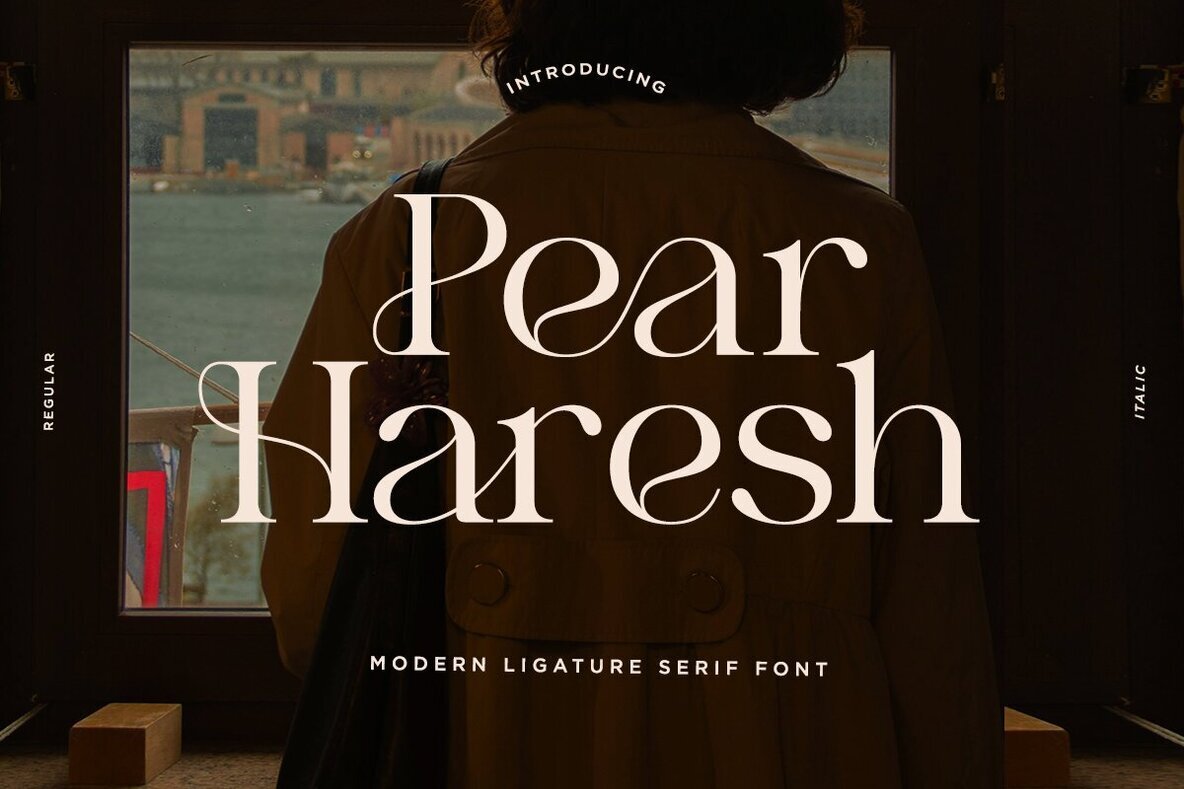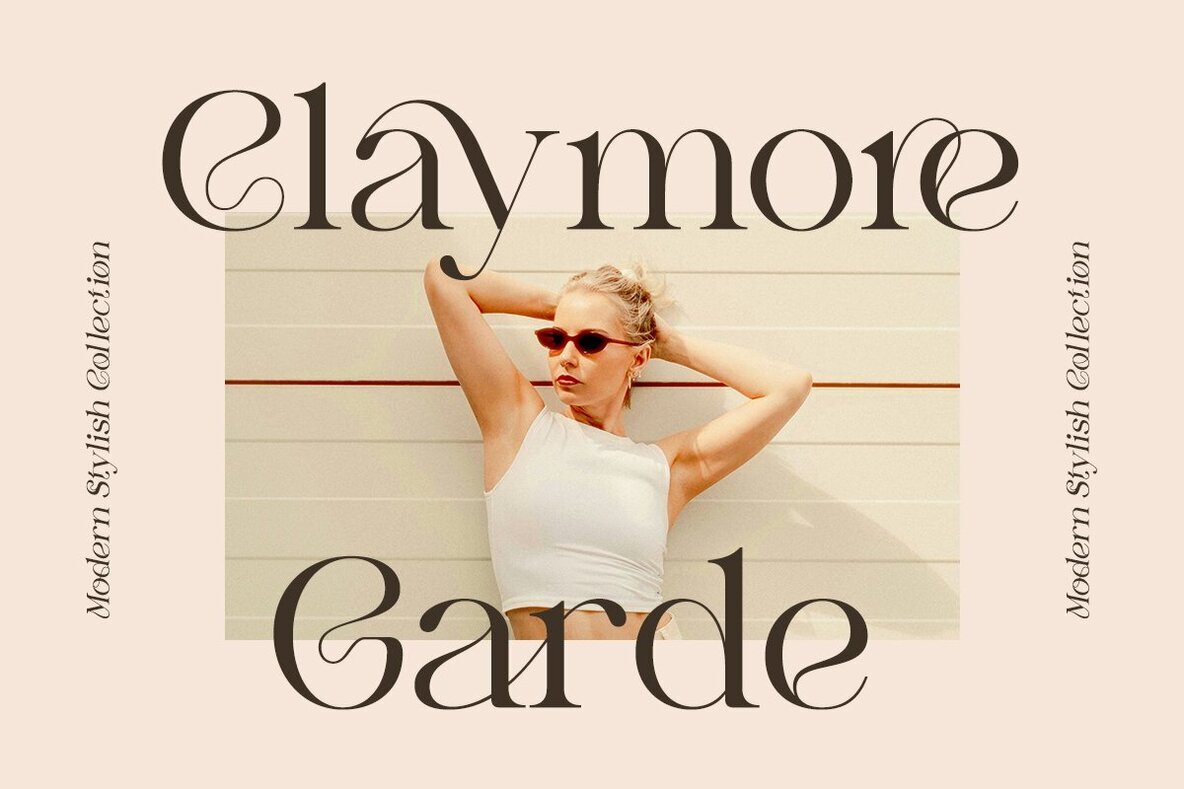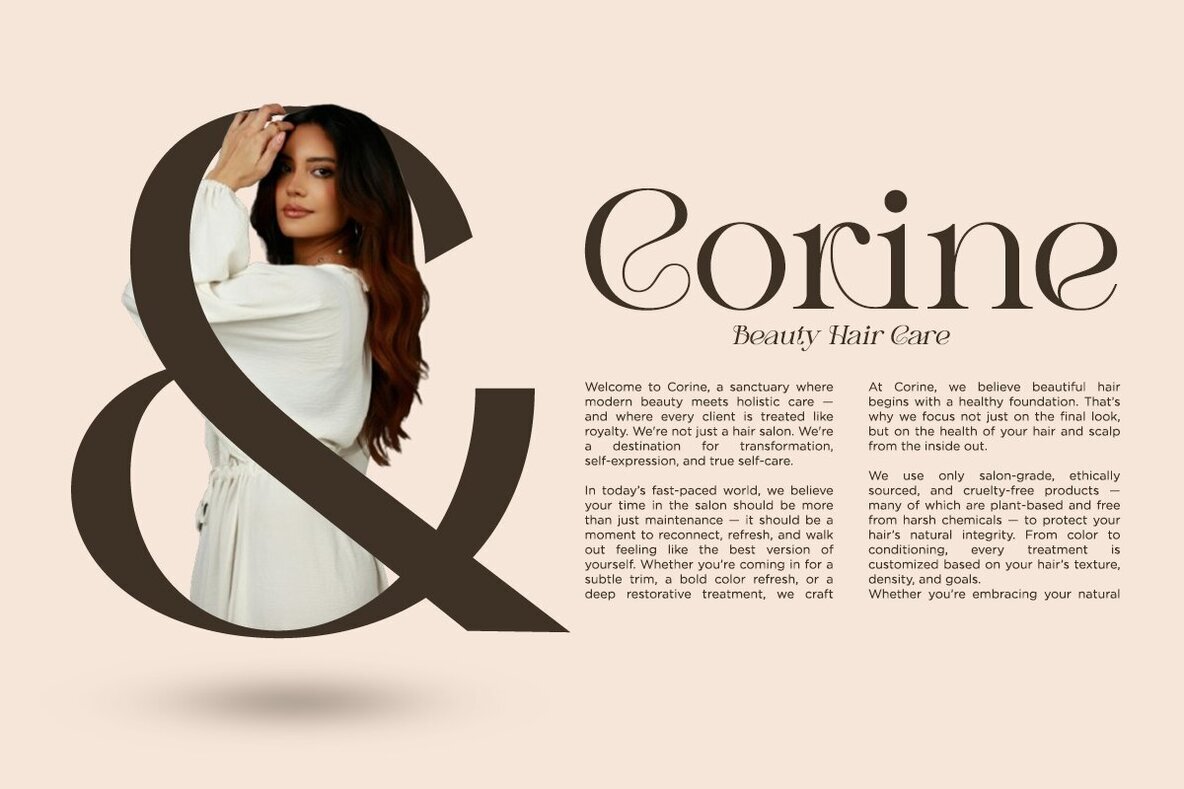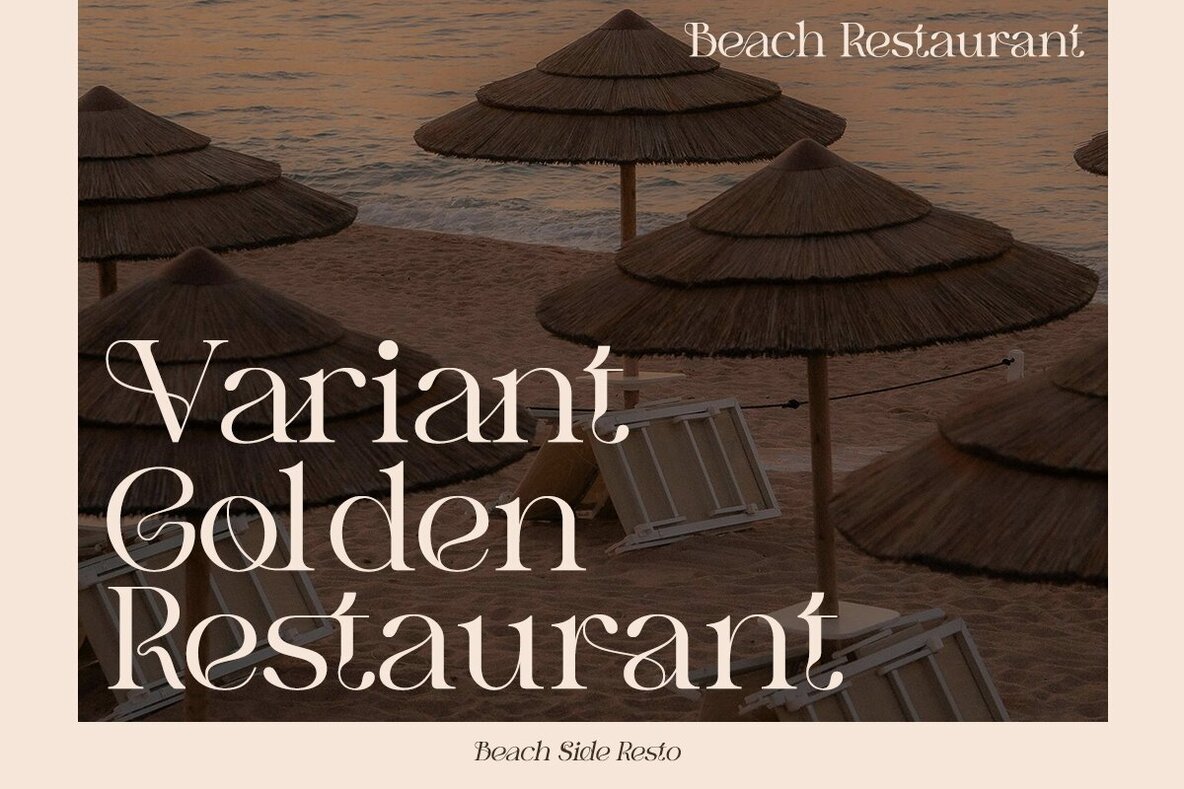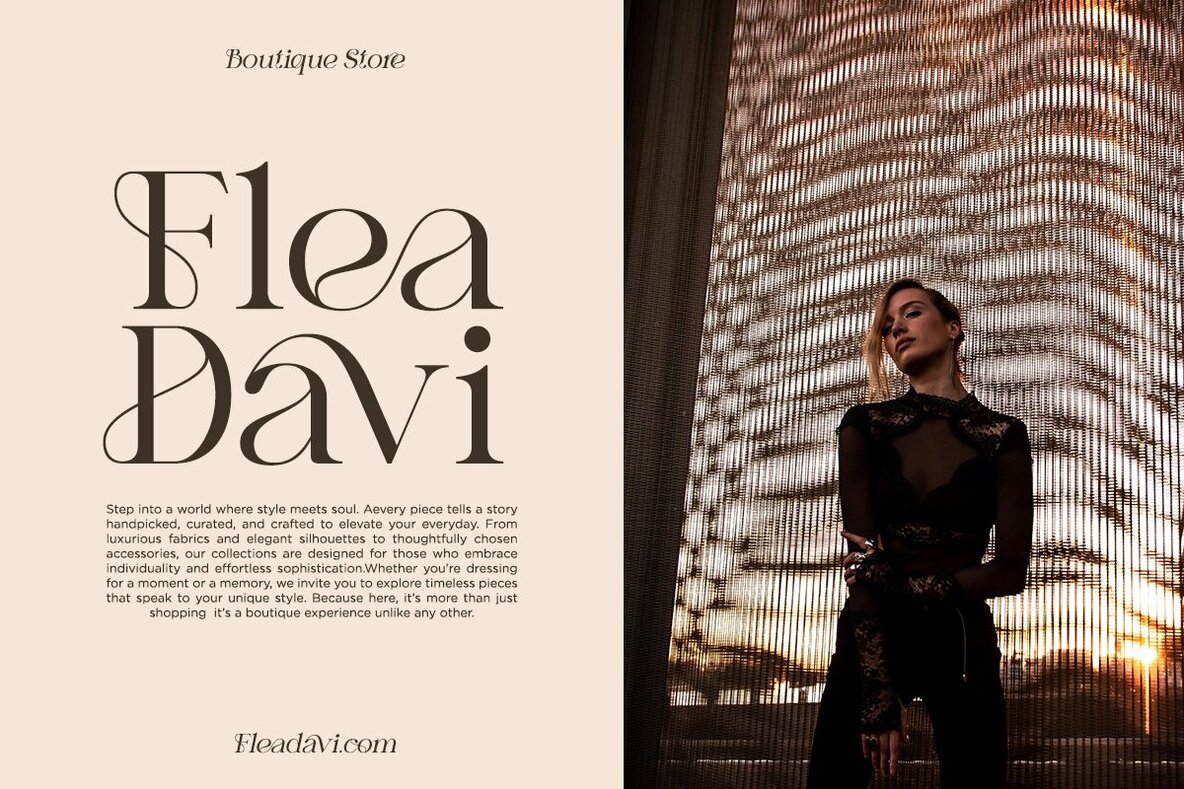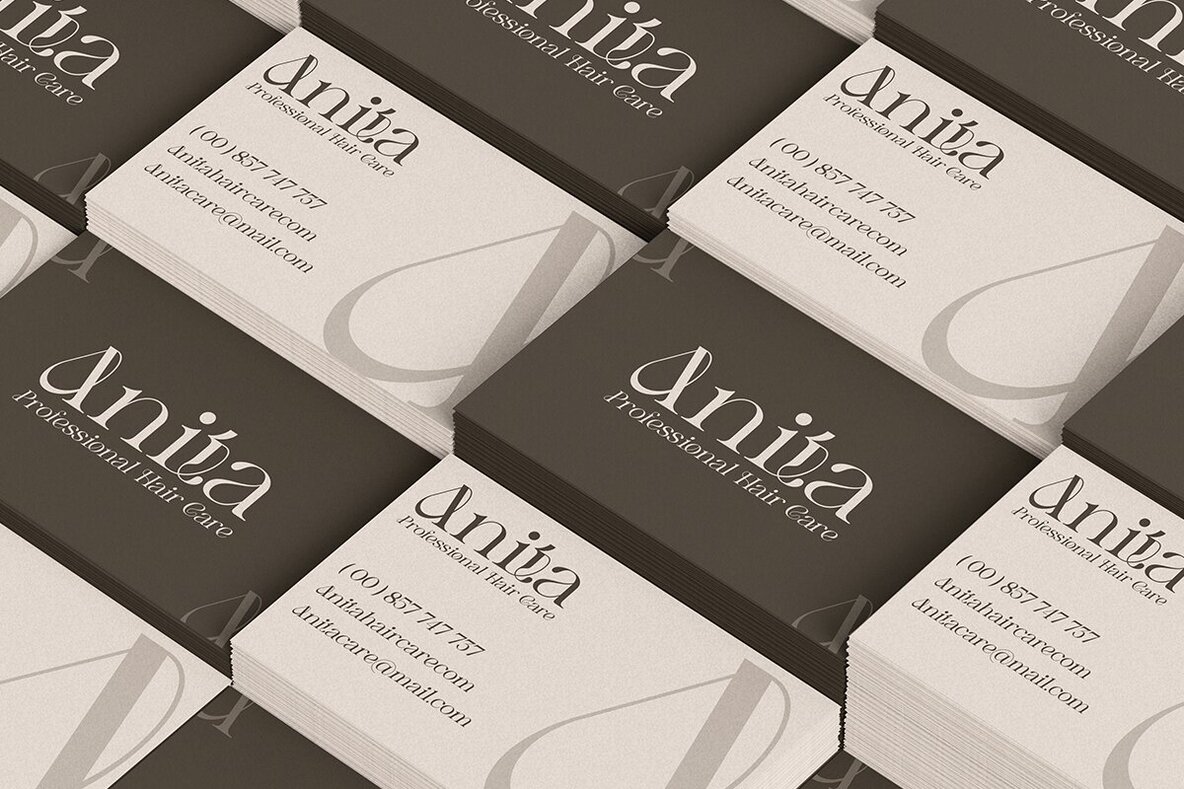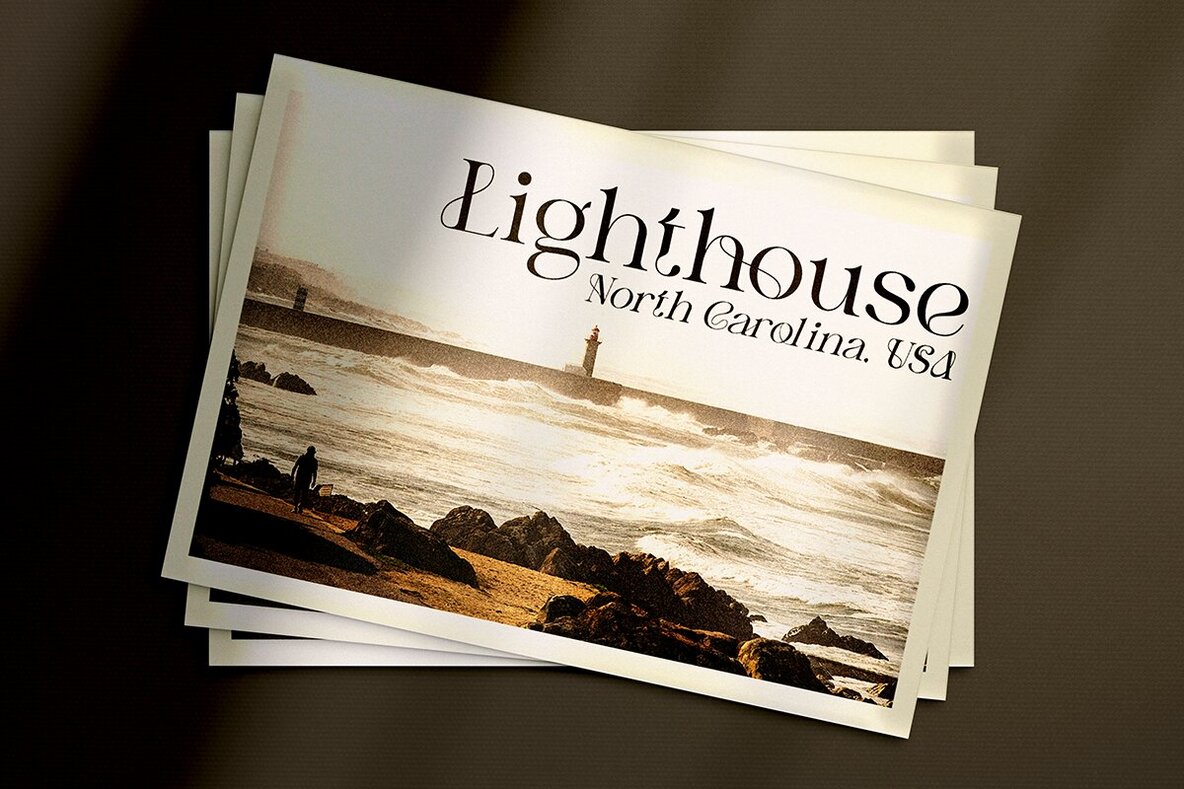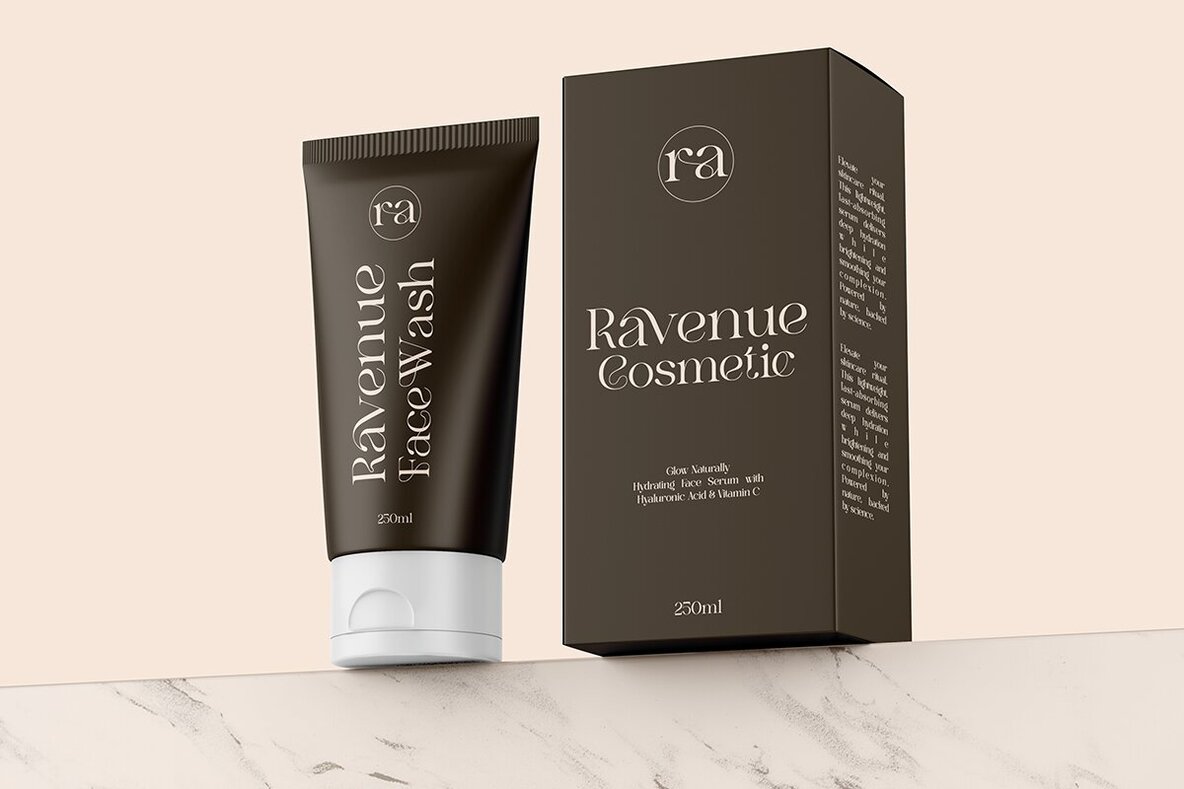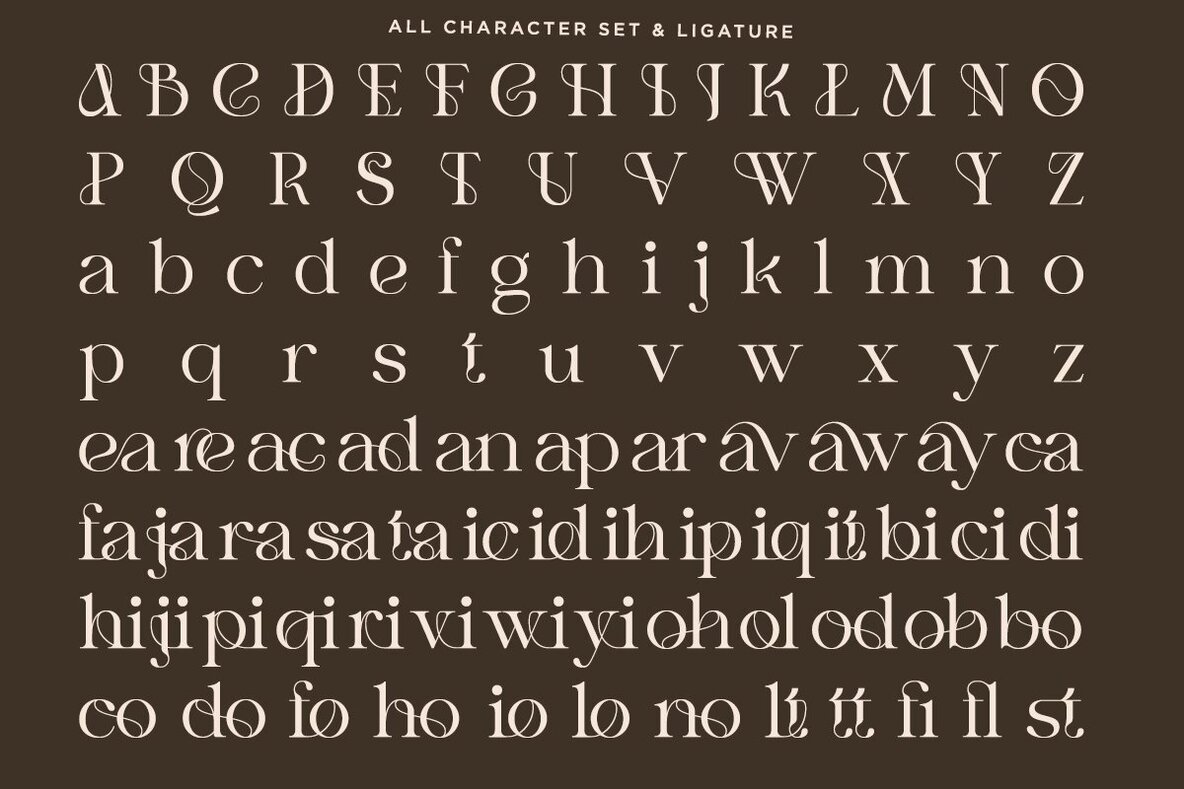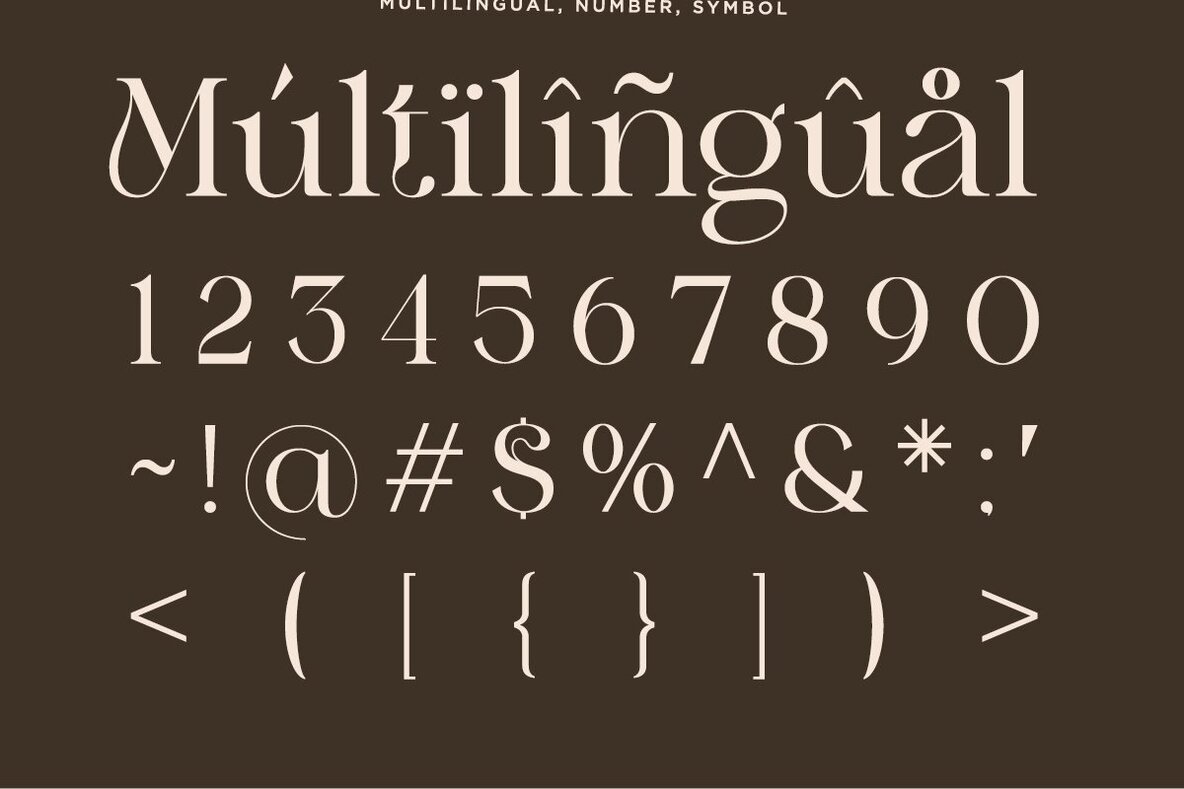
Pear Haresh Font
Pear Haresh combines the grace of classic serifs with distinctive modern details, creating a font that stands out across branding, editorial, and digital applications. Its crisp lines and balanced proportions introduce both elegance and character, offering a refined option for designers aiming to convey a sophisticated aesthetic. This typeface brings a luxurious atmosphere to projects, ensuring clear readability while adding subtle flourishes through its stylish ligatures. The versatility of both regular and italic styles makes Pear Haresh suitable for magazine headlines, premium packaging, and contemporary design statements.Pear Haresh: Modern Serif with Expressive Ligatures